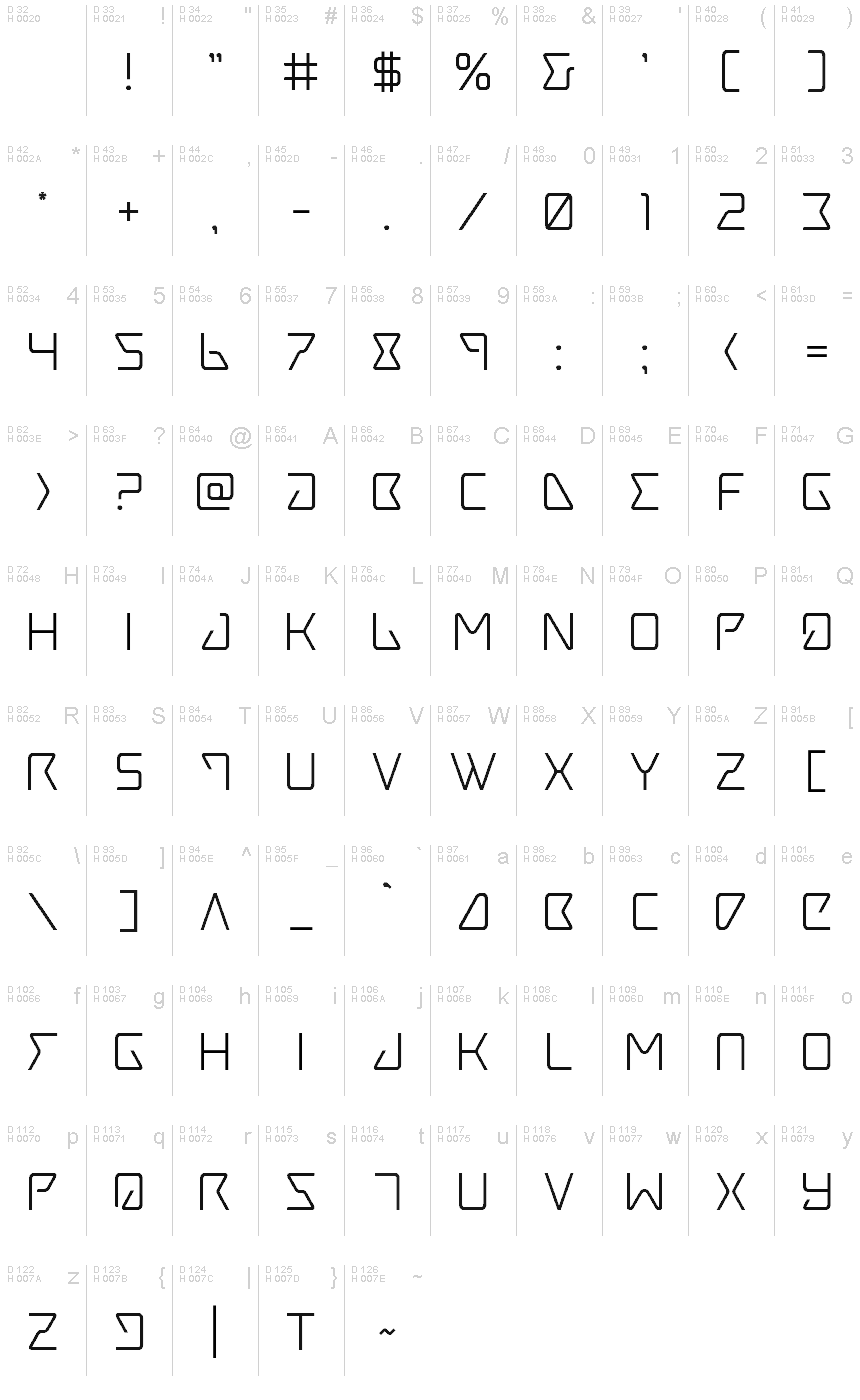
Tracer
Tracer, a sleek creation by Daniel Zadorozny, stands out as a semi-light display font that encapsulates the essence of futuristic styling. Its streamlined contours and bold cuts offer a visual narrative that propels any design into the next era. The aesthetic appeal of Tracer is unmistakably modern, with each character sporting geometric precision and an almost digital fluidity that makes it perfect for projects looking to convey innovation and progress.
The style of Tracer suggests speed and motion, making it an excellent choice for creative endeavors in technology, gaming, or science fiction themes. Its clean lines ensure legibility while its stylistic nuances capture attention, offering designers a balance between functionality and avant-garde artistry. Whether used in logos, headers, or promotional materials, Tracer is poised to give your projects a cutting-edge vibe with its forward-thinking design.